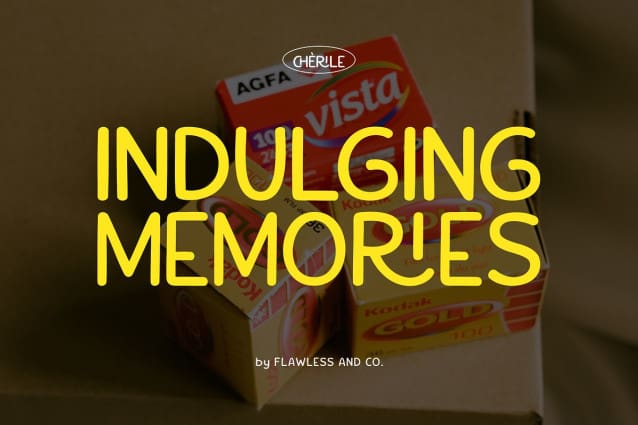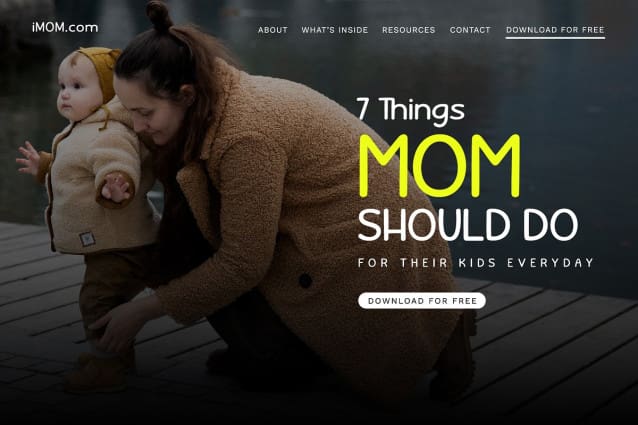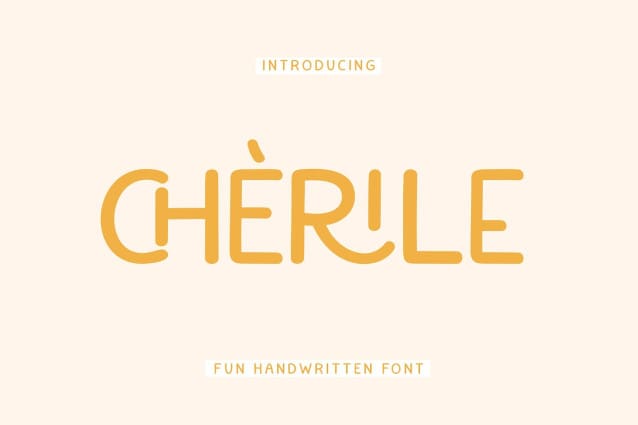
Cherile Playful Font
Cherile Playful Font a lively and playful handwritten font that injects a sense of fun and joy into your designs. With its whimsical letterforms and energetic strokes, Cherile adds a delightful and carefree vibe to any project. This font is suitable for branding, business, logos, magazines, and others.